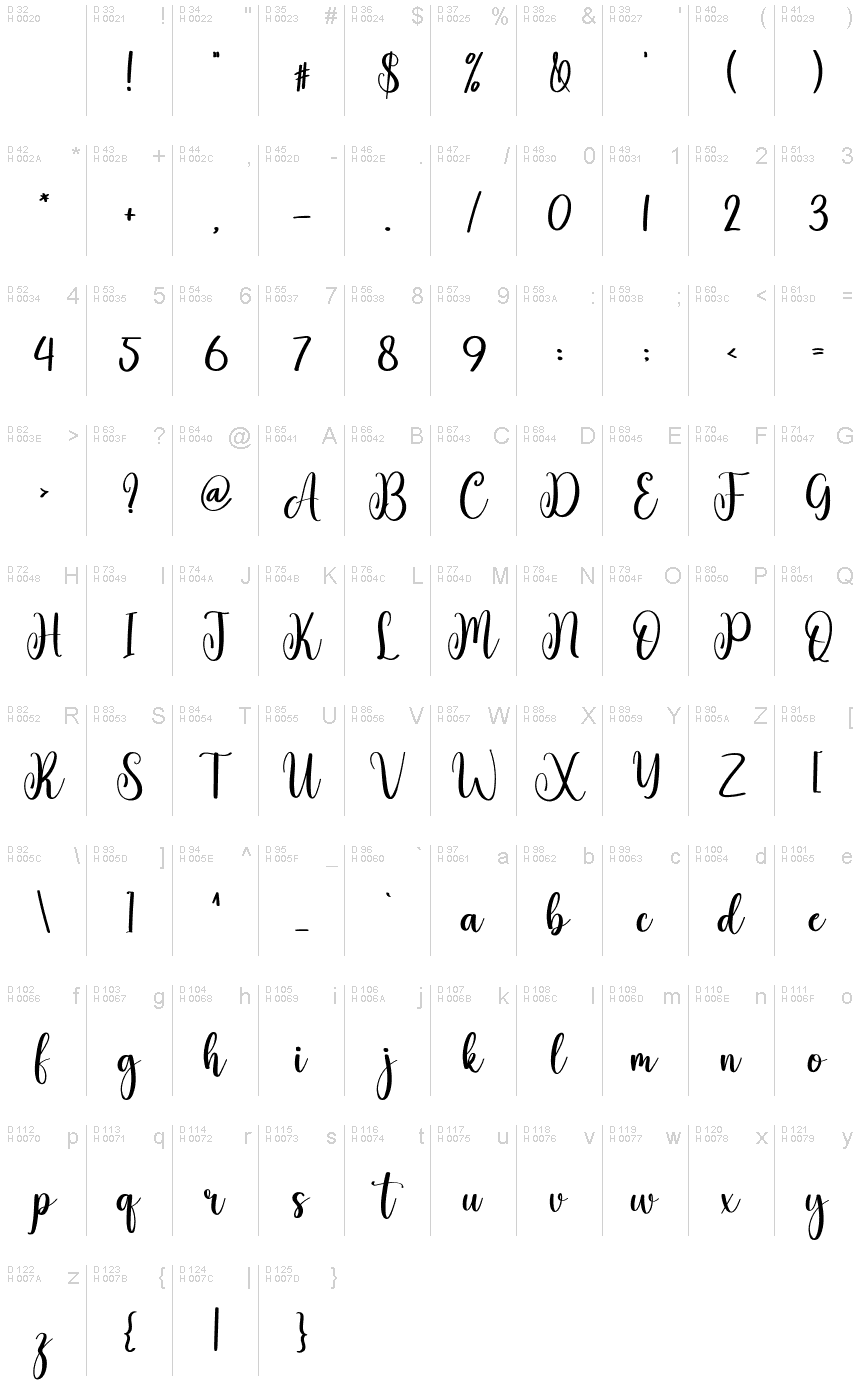
Hand Button
Hand Button, the captivating calligraphic font designed by Kateeng Ciu, is the perfect choice for projects that require a touch of elegance and sophistication. With its semi-light weight and delicate strokes, this font exudes grace and refinement that will elevate any design to new heights. Ideal for wedding invitations, greeting cards or even branding materials, Hand Button's effortless curves and graceful flourishes add a unique charm to any message conveyed. Its handcrafted style is sure to captivate the hearts of your audience while leaving a lasting impression. Add a touch of personality to your designs with Hand Button - your go-to semi-light calligraphy font!
This font retains a classy calligraphic influence while feeling contemporary and fresh. This versatility will attract a wide range of creative ideas, from letterheads and titles to stationery.